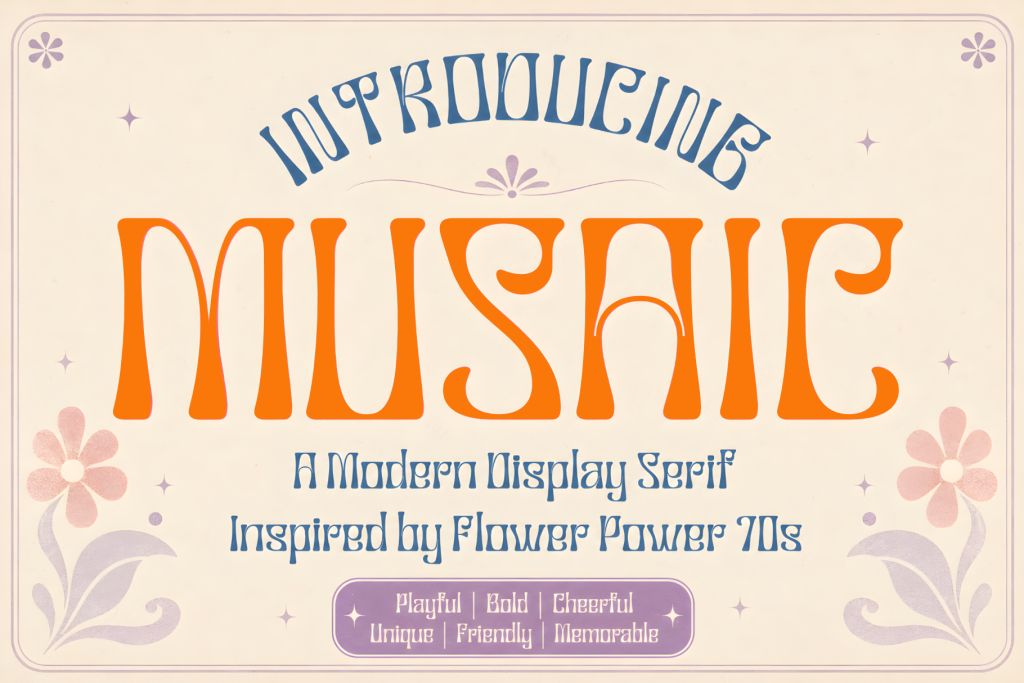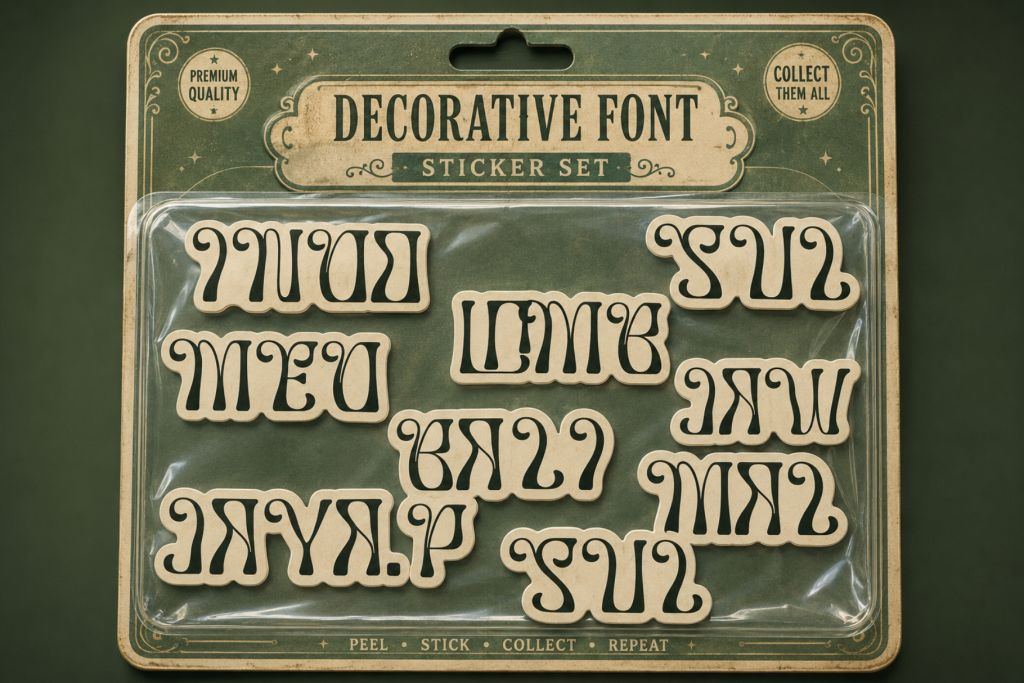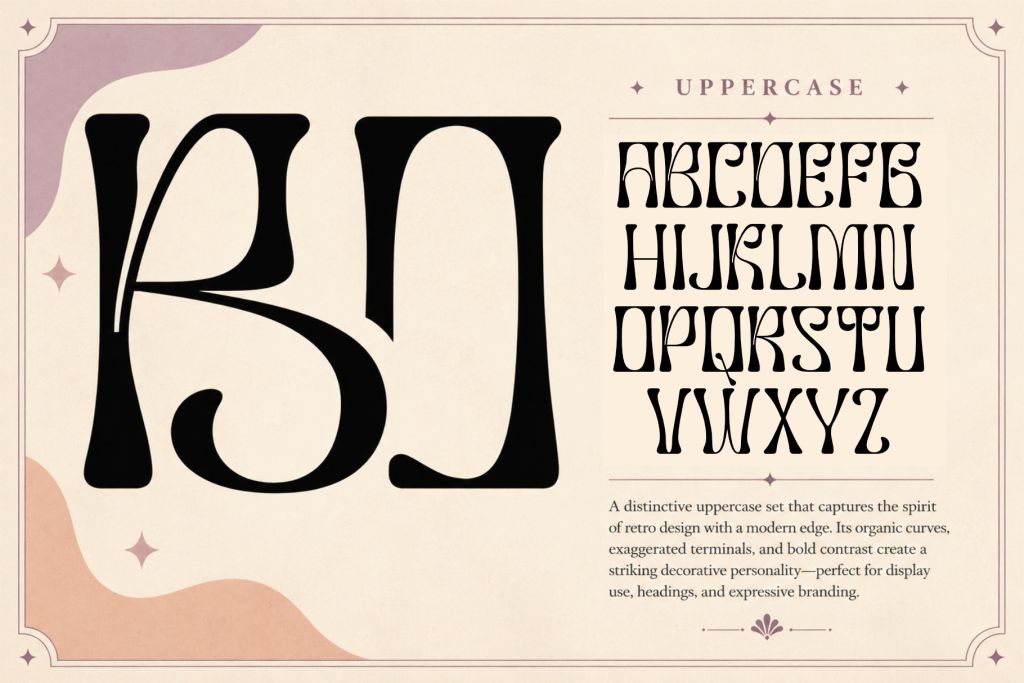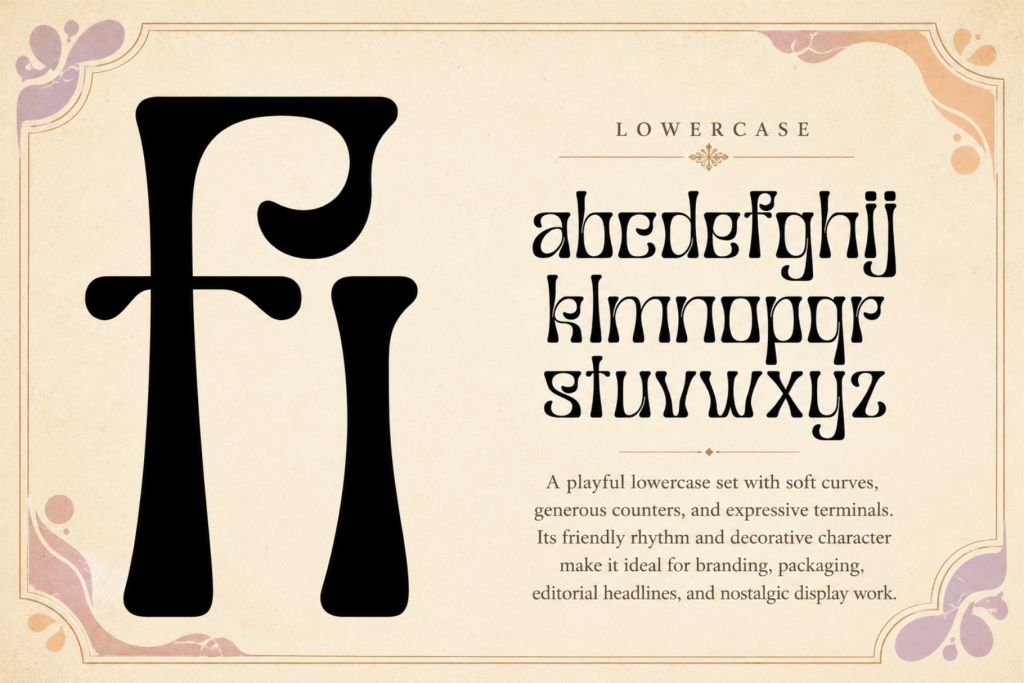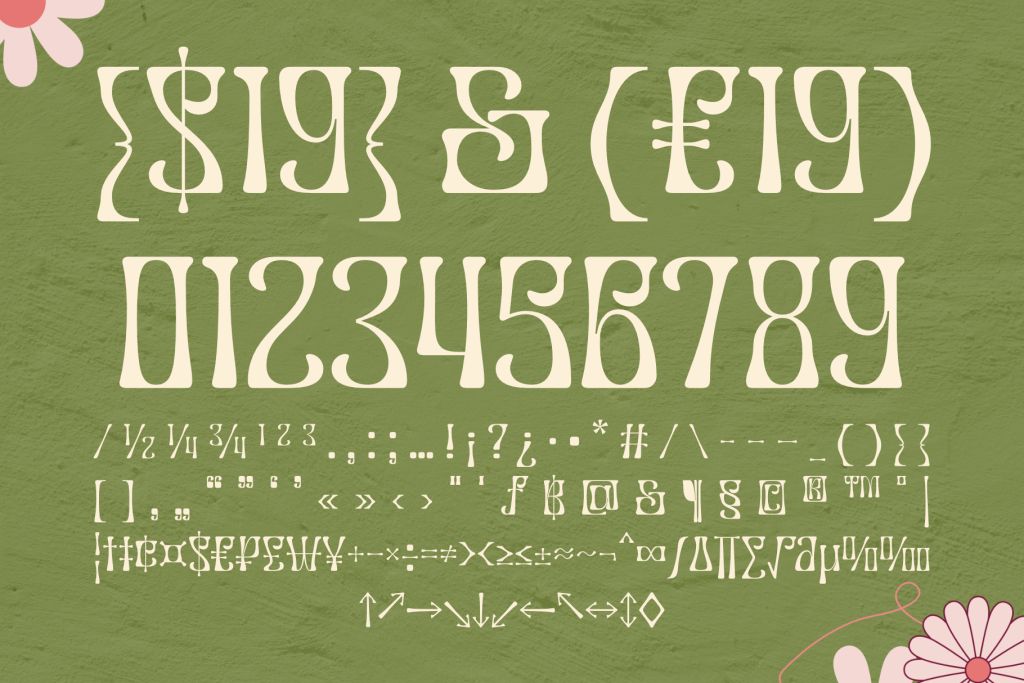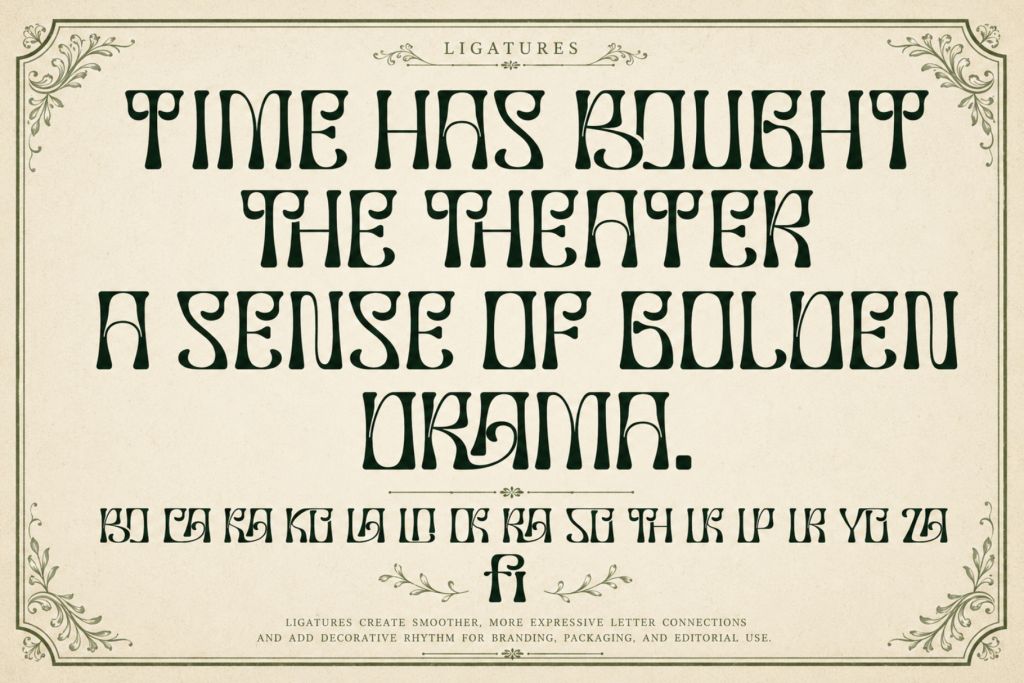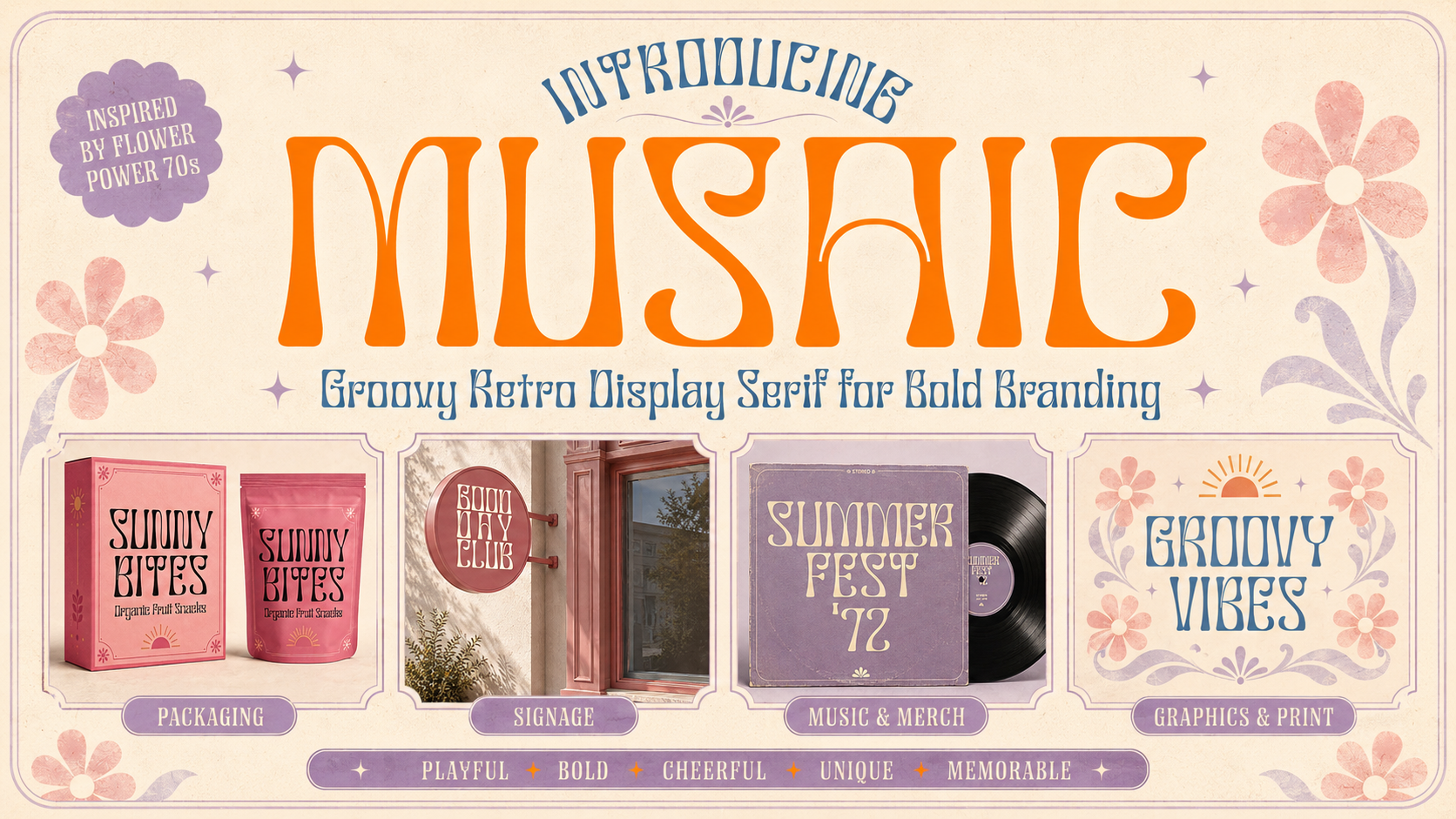
Musaic: A Groovy Retro Display Serif Font for Bold Flower Power Branding
In a visual world filled with clean templates, fast AI-generated graphics, and polished minimalist branding, many designers are starting to look for something warmer, more expressive, and more memorable. Retro typography is becoming powerful again because it carries something that modern design often loses: personality.
That is where Musaic groovy retro display serif font comes in.
Musaic is a playful groovy retro display serif font inspired by the joyful spirit of 70s flower power design. With bold curves, expressive letterforms, decorative rhythm, ligatures, and stylish alternates, Musaic is made for brands and creative projects that want to feel warm, nostalgic, confident, and instantly recognizable.
Why Retro Typography Still Feels Fresh Today
Retro design is not only about copying the past. The best retro-inspired design works because it takes emotion from an earlier era and reshapes it for modern branding.
The flower power and psychedelic poster era gave graphic design some of its most expressive visual languages. In the 1960s and 1970s, poster artists and designers used swirling shapes, bold colors, decorative lettering, and highly expressive layouts to create visual energy. MoMA notes that many psychedelic posters used ornate, swirling typography influenced by earlier movements such as Art Nouveau and the Vienna Secession.
Designers such as Wes Wilson and Victor Moscoso helped shape this expressive poster language. Cooper Hewitt describes Wilson’s posters as memorable works from the psychedelic era, often connected to San Francisco music culture and hand-lettered visual experimentation. The Victoria and Albert Museum also notes how 1960s psychedelic graphics recycled Art Nouveau motifs and were developed further by groups and designers in both the UK and America.
Musaic does not try to become a historical replica. Instead, it takes inspiration from that expressive visual mood and turns it into a usable modern display serif for designers today.
A Font Made to Become the Visual Focus
Some fonts are designed to disappear into the background. Musaic is not one of them.
Musaic is made to be seen. Its bold curves and decorative details make it ideal for large display settings where typography needs to become the hero of the design. This makes it especially useful for:
- Brand logos
- Product packaging
- Posters
- Merchandise
- Social media graphics
- Boutique signage
- Sticker designs
- Kids and playful creative projects
- Retro event branding
- Music, lifestyle, and handmade product visuals
Because Musaic has a strong personality, it works best when used intentionally. It can carry a logo, headline, or packaging label by itself without needing too many extra visual elements. A simple color palette, a vintage illustration, or a warm textured background is often enough to let the font shine.
The Personality of Musaic
Musaic groovy retro display serif font feels cheerful, bold, and nostalgic, but still polished enough for commercial branding. It has the friendly charm of 70s-inspired typography, but the structure is crafted for modern use.
The curves feel soft and playful. The serifs add a decorative rhythm. The alternates and ligatures help designers create wordmarks that look more custom and less generic.
This is important for branding because many businesses today are trying to avoid looking too similar. A simple sans serif can look clean, but it may not always create a strong emotional memory. A decorative retro serif like Musaic gives a brand more character from the first impression.
For example, a handmade candle brand, a natural skincare label, a children’s boutique, a coffee packaging concept, or a vintage poster design can all use Musaic to create a more memorable visual voice.
Perfect for Logos and Wordmarks
One of the strongest uses for Musaic is logo design.
A good logo font should not only be readable. It should also communicate a feeling. Musaic gives designers a playful foundation for creating logos that feel nostalgic, artistic, warm, and full of movement.
The stylish alternates can help make a logo feel more custom. The decorative ligatures can make certain letter combinations flow better. This is especially helpful when creating wordmarks for small brands that need a unique identity without building every letter from scratch.
In a design world where many visuals are starting to look the same, Musaic gives your work something more human: charm, rhythm, nostalgia, and personality.